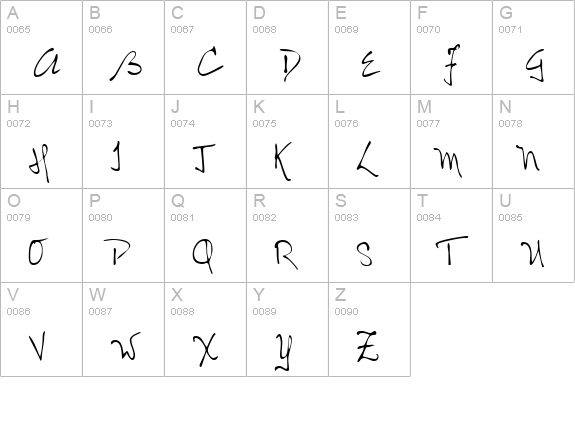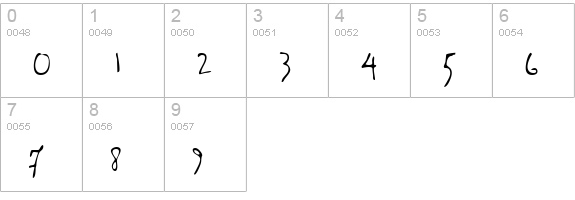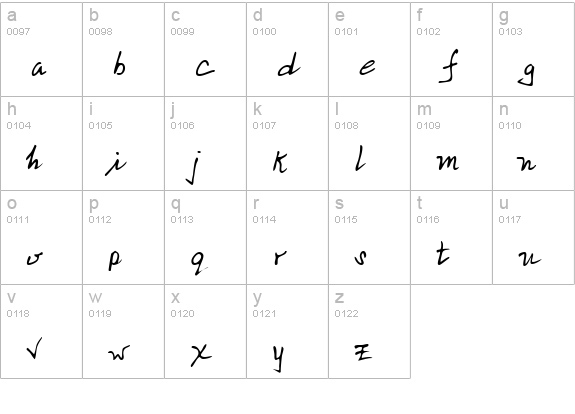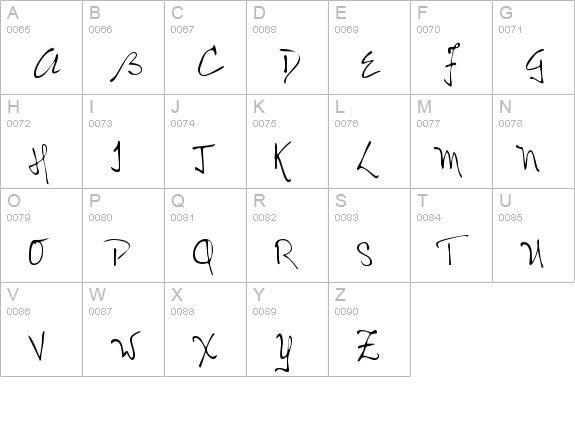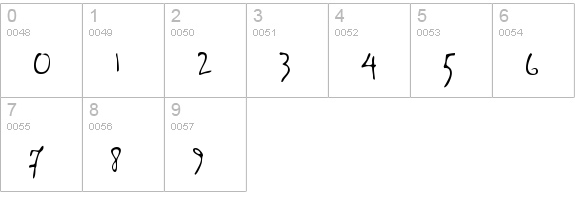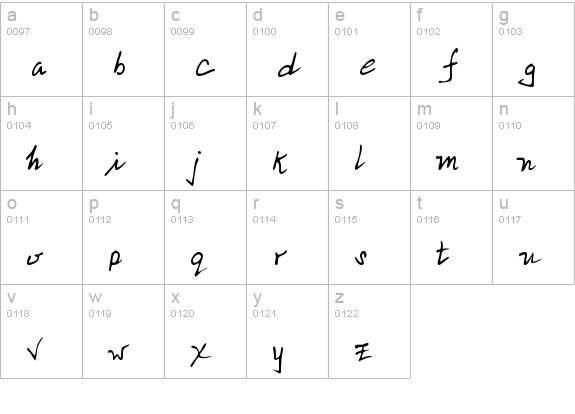
NolansHand Regular Font Details
NolansHand Regular is the standard, neutral variant in the NolansHand typeface family \xE2\x80\x94 well suited to general body text, paragraphs, and standard typographic work.
NolansHand Regular font is a charming and versatile typeface that exudes a sense of warmth and friendliness. With its hand-drawn appearance and unique character shapes, this font is perfect for adding a personal touch to your designs. The flowing lines and playful curves of NolansHand Regular make it an excellent choice for a wide range of projects, from invitations and greeting cards to branding and packaging. Best of all, NolansHand Regular is available for free download at FontsMarket.com. Whether you're a designer looking to add a touch of whimsy to your work or simply want to spruce up your personal projects, NolansHand Regular is a fantastic choice. Download it today and let your creativity soar with this delightful and expressive font.